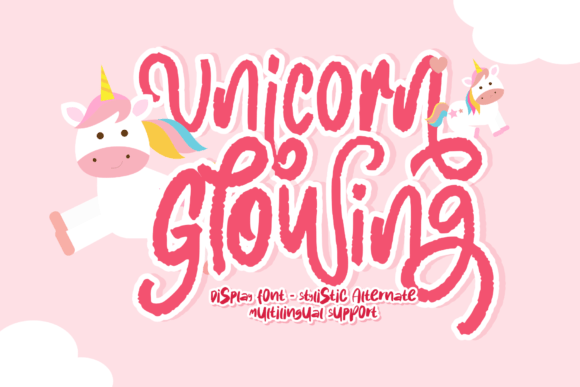
Step into a world of enchantment and wonder with Unicorn Glowing, the most captivating display font that will ignite your creativity and leave you spellbound. Embark on a visual odyssey where letters dance with a luminous aura, exuding an irresistible charm that will elevate your designs to new heights of artistry.
Immerse yourself in the realm of Unicorn Glowing, a font that embodies the essence of magic and enchantment. Its ethereal aesthetic, reminiscent of shimmering stars and radiant rainbows, will cast a spell on your audience, leaving them captivated and enchanted. Unleash your imagination and craft designs that transcend the ordinary, designs that transport your viewers to a realm of whimsy and delight.
With Unicorn Glowing, the possibilities are endless. Create logos that radiate brilliance, titles that command attention, and graphic designs that leave an indelible mark. Let your designs shimmer with the brilliance of a thousand stars, capturing hearts and igniting imaginations. From enchanting invitations to eye-catching social media posts, Unicorn Glowing will transform your creative visions into captivating realities.
Dive into the depths of Unicorn Glowing's character set and discover a treasure trove of enchanting glyphs. Each letter, imbued with its own unique charm, dances across the page with effortless grace. Swirls and flourishes intertwine, creating a symphony of visual delight that will leave you breathless. Embrace the magic of Unicorn Glowing and witness the transformation of your designs into captivating masterpieces.
Unleash the power of Unicorn Glowing and elevate your designs to new heights of beauty and enchantment. Let your creativity soar as you weave tales of wonder and delight, enchanting your audience with every stroke of your pen. Embrace the magic of Unicorn Glowing and embark on a creative journey that will leave you spellbound and inspired.